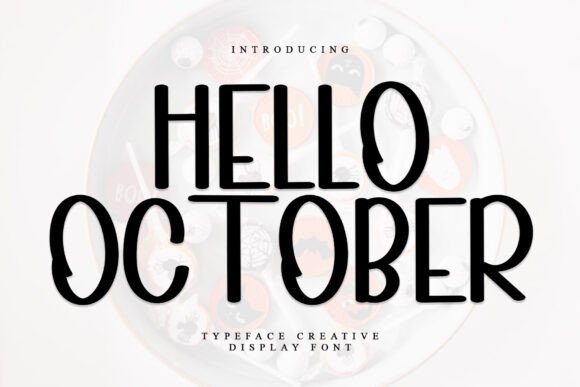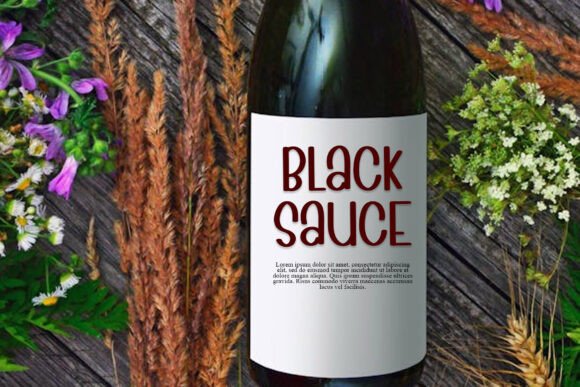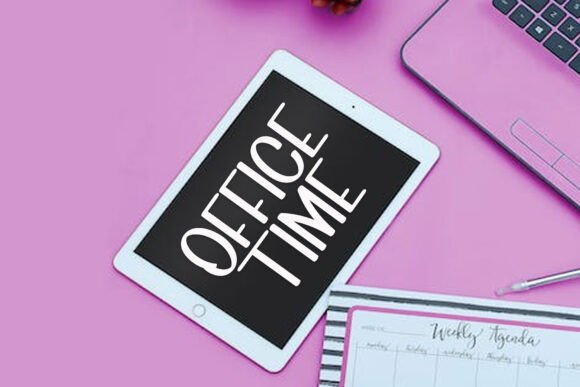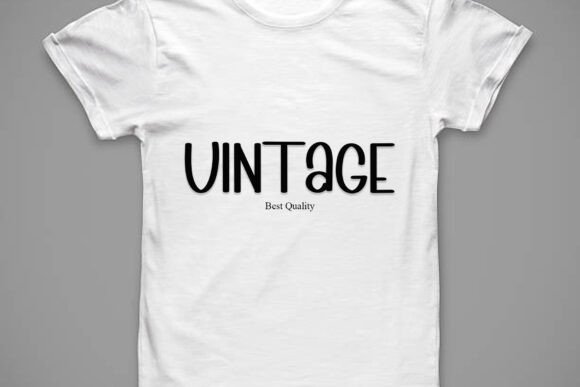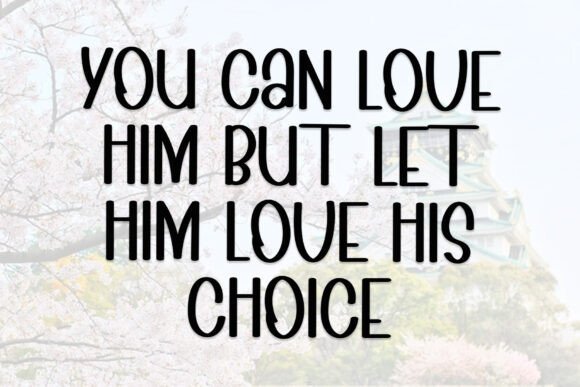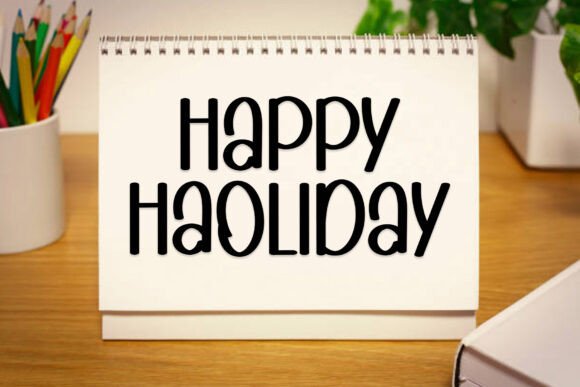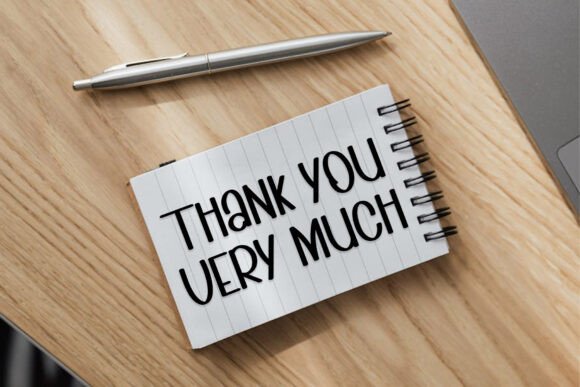
Getting Cozy with Creativity
There’s something magical about stepping into October, isn’t there? The crisp air, the vibrant colors, and the cozy atmosphere all blend together to create the perfect setting for creativity to flourish. As designers, we often find ourselves drawn to the charm of this season, seeking inspiration in its warmth and beauty.
That’s where the Hello October Font comes in – a sweet and friendly handwritten font that perfectly captures the essence of this enchanting month. Designed to add a touch of personality to your designs, this font is all about embracing individuality and letting your imagination run wild. Whether you’re crafting a festive invitation, a heartfelt card, or a whimsical poster, Hello October Font is the perfect companion to help bring your creative vision to life.
Hello October Font Key Features
- Font Family: Hello October is a unique sans-serif font with a modern, geometric feel.
- Font Size: The font includes a range of weights from Extra Light (100) to Extra Bold (800)
- Unique Characteristics: The font features a distinctive, rounded corner design with subtle geometric flair, making it perfect for modern branding and design projects.
Hello October Font Review
I recently had the chance to work with the Hello October Font, and I must say, it’s a charming addition to any design project. Here are my thoughts:
- Unique style: The font’s blend of modern and vintage elements makes it a great choice for projects that need a bit of personality.
- Readability: Despite its decorative nature, the font is surprisingly easy to read, even at smaller font sizes.
- Flexibility: The font comes in a range of weights and styles, making it versatile for use in various design contexts.
- Not ideal for body text: While the font is great for headlines and titles, it may not be the best choice for large blocks of body text due to its decorative nature.
- Limited language support: The font may not be optimized for non-Latin scripts or languages with complex typography.
Overall, I think the Hello October Font is a great choice for designers who want to add a touch of personality to their projects. While it may not be suitable for every design task, it’s a solid option for projects that require a unique and eye-catching font.
Tips for Getting the Most Out of Hello October Font
For the best results, use Hello October Font in combination with bold and italic styles to add emphasis and depth to your text. You can also experiment with different font sizes and colors to create visual interest.
Hello October Font is ideal for creating seasonal and autumnal-themed designs, such as Halloween invitations, fall-themed social media posts, and harvest-themed marketing materials.
Alternatives to Hello October Font
Great Vibes is a beautiful, handwritten script font perfect for adding a personal touch to your designs. It’s ideal for creating invitations, social media graphics, and other promotional materials where a friendly and approachable tone is desired. Great Vibes is more elegant and refined compared to Hello October Font, making it suitable for high-end branding and luxury products.
Alex Brush is a elegant, calligraphic script font that exudes sophistication and refinement. It’s perfect for creating high-end branding materials, such as logos, business cards, and brochures. Compared to Hello October Font, Alex Brush has a more formal and polished look, making it ideal for corporate and professional designs.
Carolyna Pro is a modern, script font that’s perfect for creating attention-grabbing headlines and titles. It’s ideal for use in social media graphics, advertisements, and promotional materials where a bold and dynamic tone is desired. Carolyna Pro is more modern and edgy compared to Hello October Font, making it suitable for trendy and fashion-forward designs.